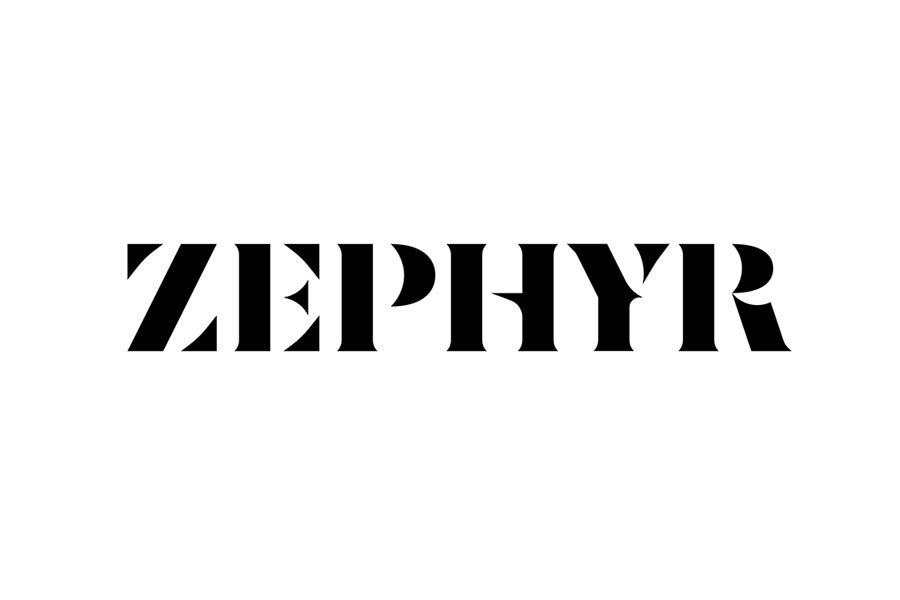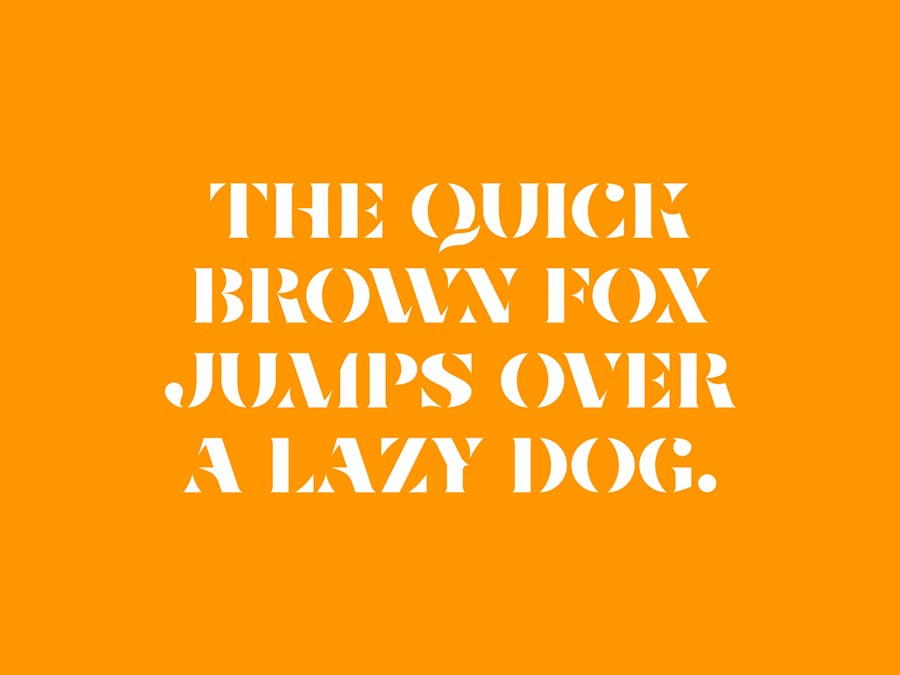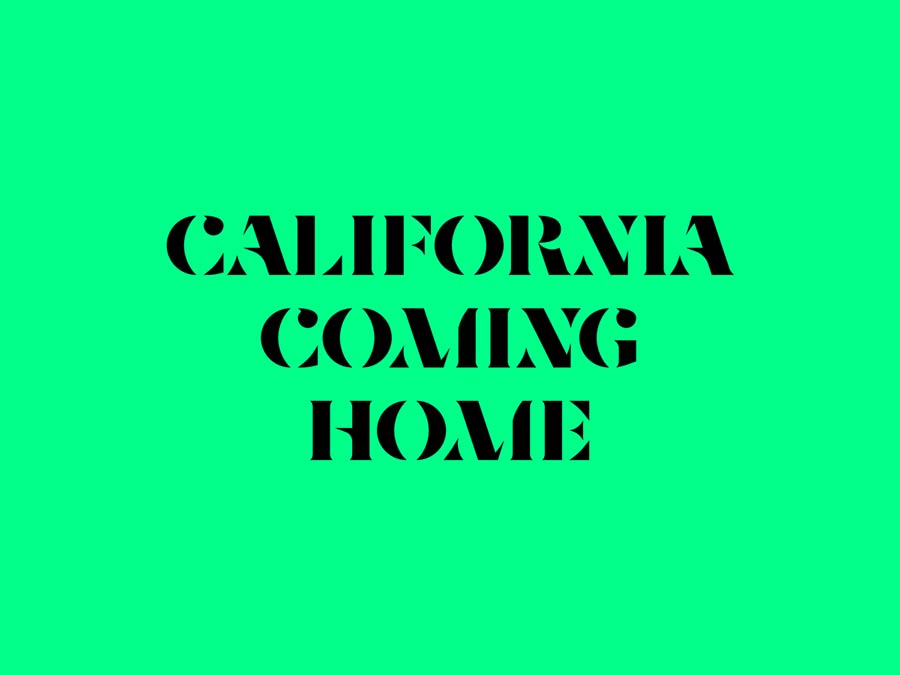
Zephyr is a stunning stencil serif typeface with lots of unique characters. It comes with a huge family of 8 styles, each accompanied with an oblique version. The styles are with the same weight but in a different variant, so you can mix and match the styles to create something interesting.
- Designer: Alexander Sheliketo